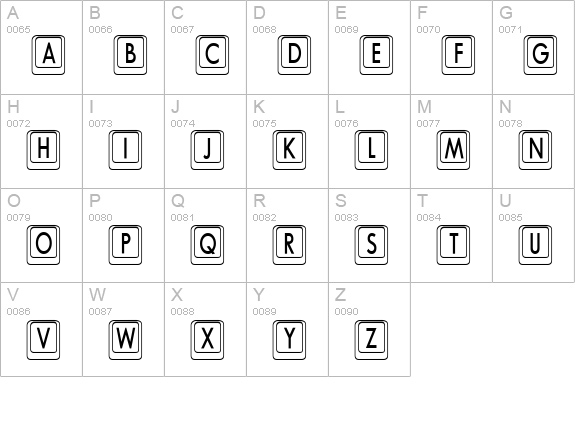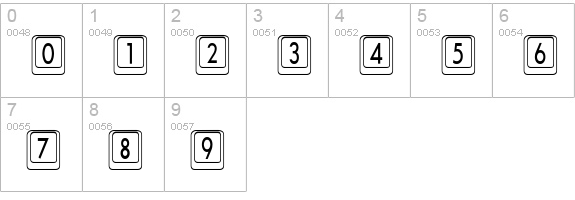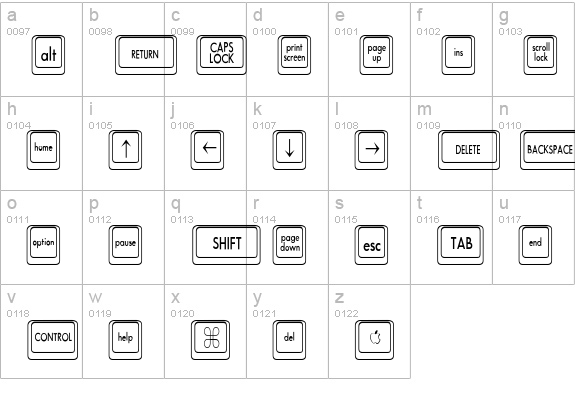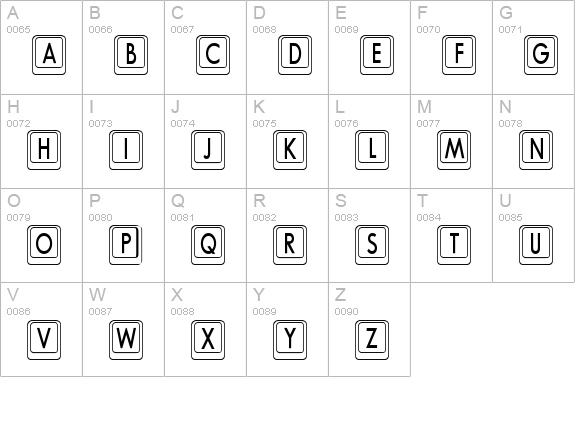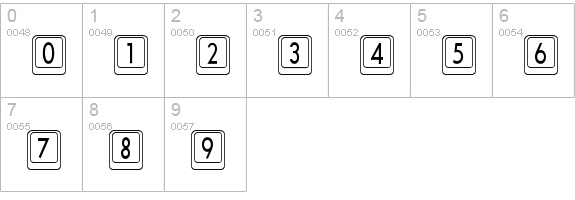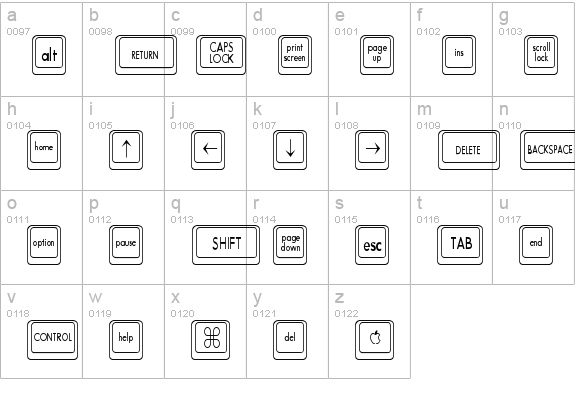
Keyboard KeysCn Condensed Font Details
Keyboard KeysCn Condensed is a distinctive, condensed-width variant in the Keyboard typeface family \xE2\x80\x94 well suited to design and typography projects.